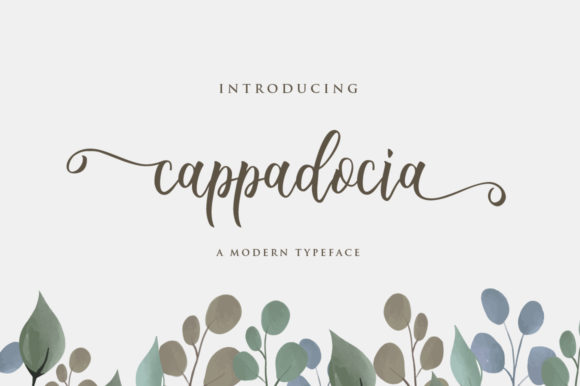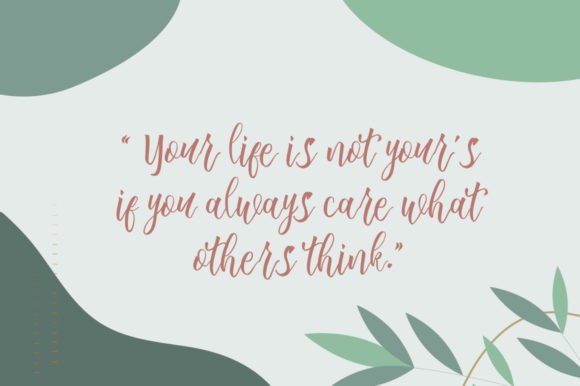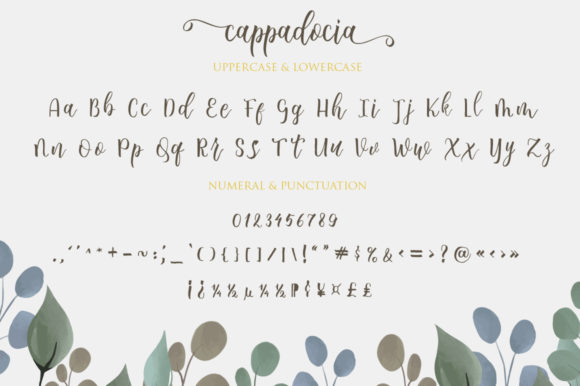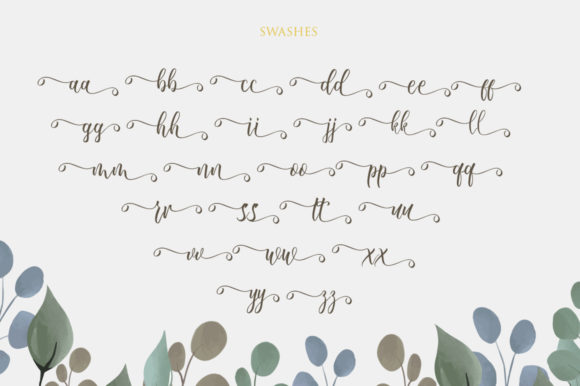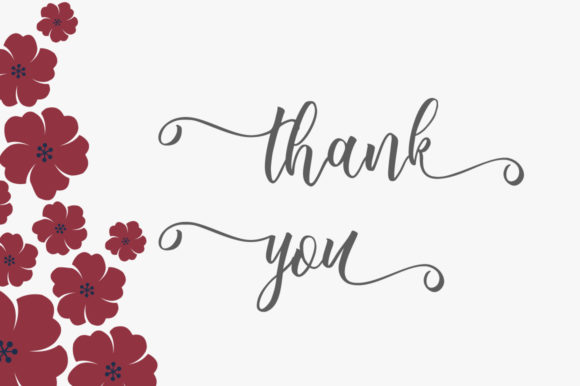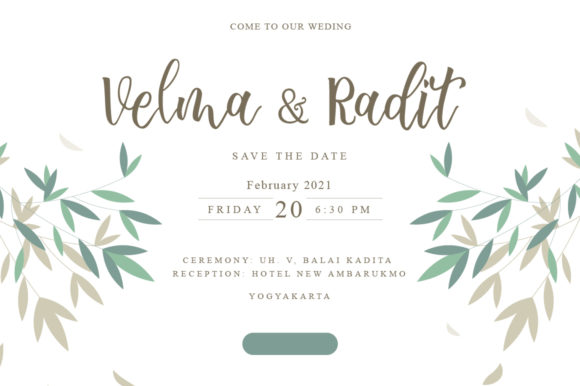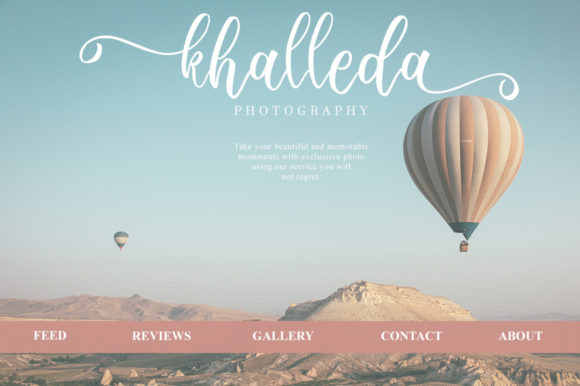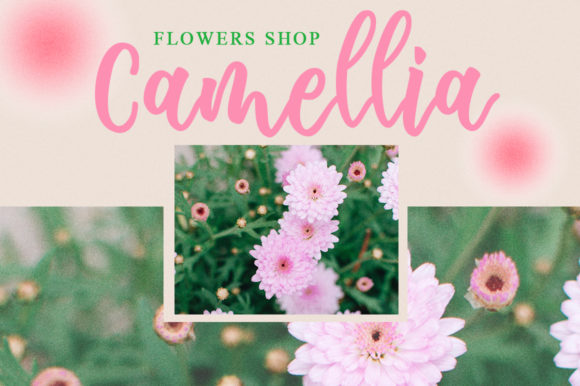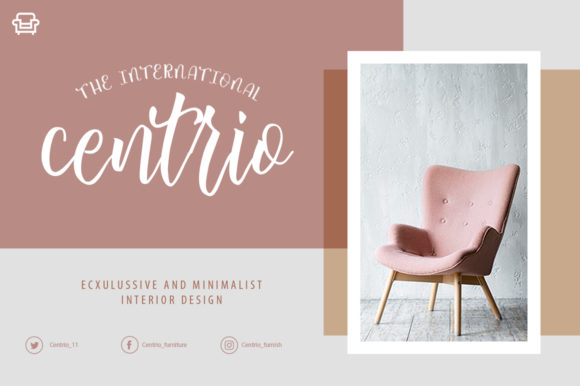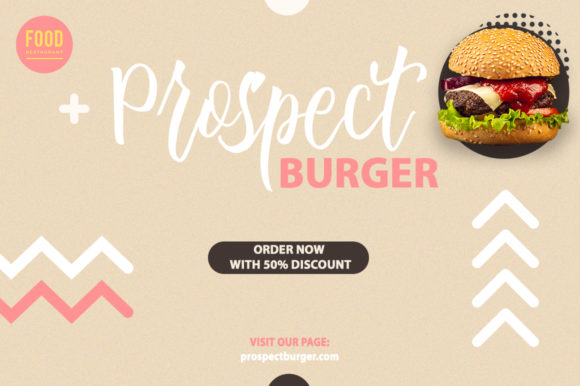
Cappadocia Font
About Cappadocia Font
Cappadocia is a remarkable and elegant handwritten font that adds a touch of timeless beauty to your designs. With its delicate and distinctive letterforms, this font exudes a sense of sophistication and refinement. It is a versatile typeface that shines on various design projects, including wedding invitations, thank you cards, quotes, greeting cards, logos, business cards, and more.
The unique style of Cappadocia makes it a perfect choice for projects that require a handwritten touch. Whether you’re designing for a romantic wedding, creating heartfelt quotes, or crafting personalized greetings, this font adds a special charm to your text. Its graceful curves and fine details create a sense of craftsmanship and artistry, making every letter a work of beauty.
One of the notable features of Cappadocia is its PUA encoding. With PUA (Private Use Area) encoding, you can easily access all the glyphs and swashes included in the font. This allows you to add decorative elements, alternate characters, and stylish swashes to your text effortlessly. The PUA encoding ensures that you have complete creative freedom to customize your designs and make them truly unique.
Cappadocia’s versatility extends to various design applications. From elegant wedding invitations that set the tone for a memorable event to professional business cards that make a lasting impression, this font adapts to different contexts while maintaining its timeless appeal. Its legible letterforms ensure clear readability, while the handwritten touch adds a sense of warmth and personalization.
In summary, Cappadocia is a distinct, delicate, and timeless handwritten font that enhances your designs with its elegance and charm. With its PUA encoding, you have easy access to all the glyphs and swashes, allowing you to customize your text with decorative elements. Whether you’re working on wedding-related projects, quotes, greetings, or other designs that call for a handwritten feel, Cappadocia is a versatile font that adds a touch of sophistication and beauty.